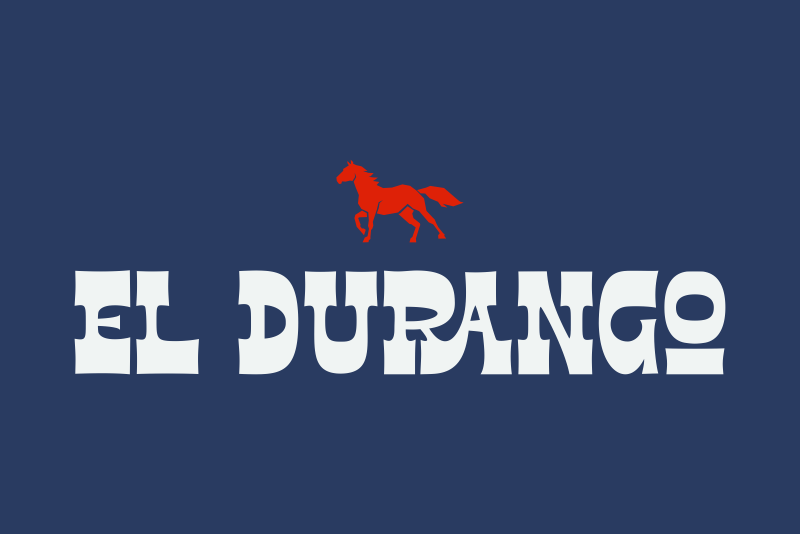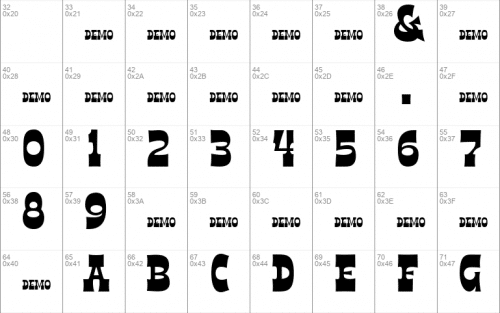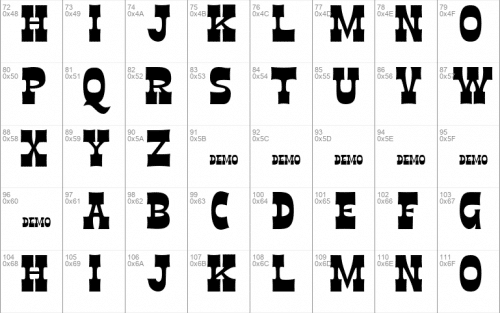
The wait is over, meet El Durango…like it’s name, it represent the western culture, the old mining town, railroad…and vast mountain side.
The freedom spirit of El Durango, is perfect for your western theme poster, flyer, games, and t-shirt project as well. You’ll get a magnifico font, with lots of vector and ready to use .PNG of western culture image.
From hat to spurs, from mountain to river. Go wild, be a cowboy.